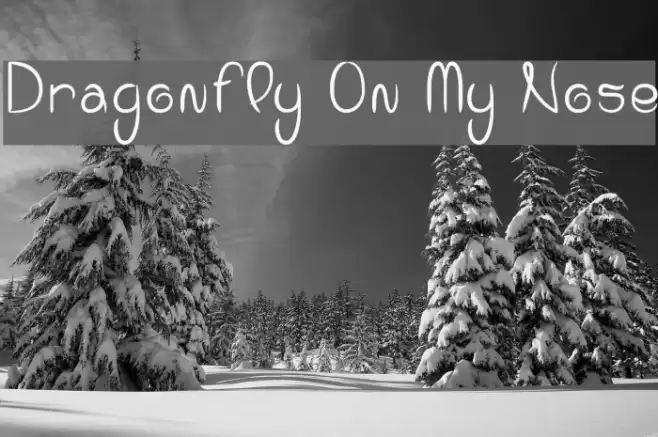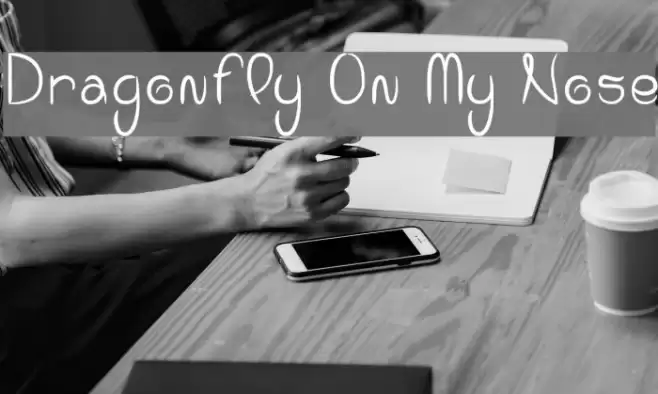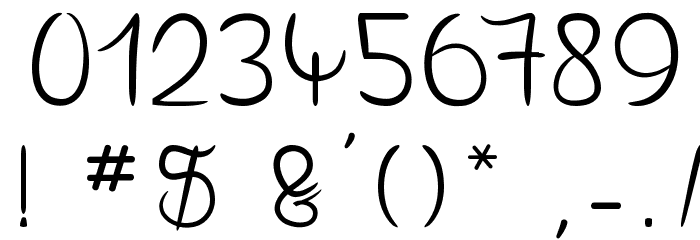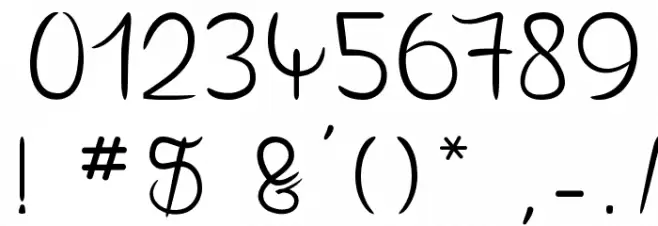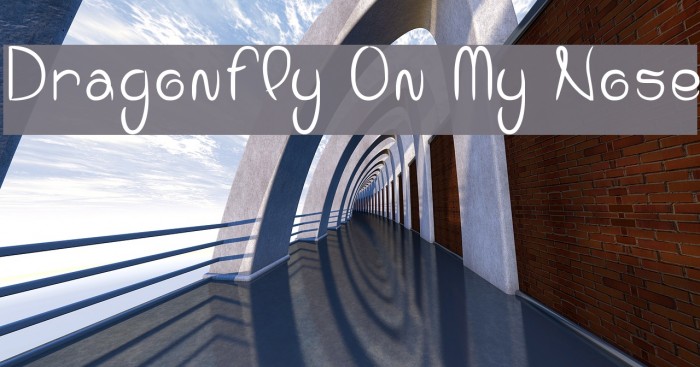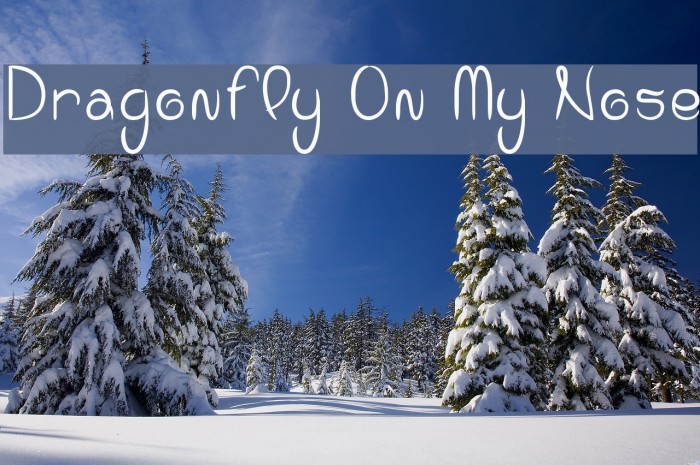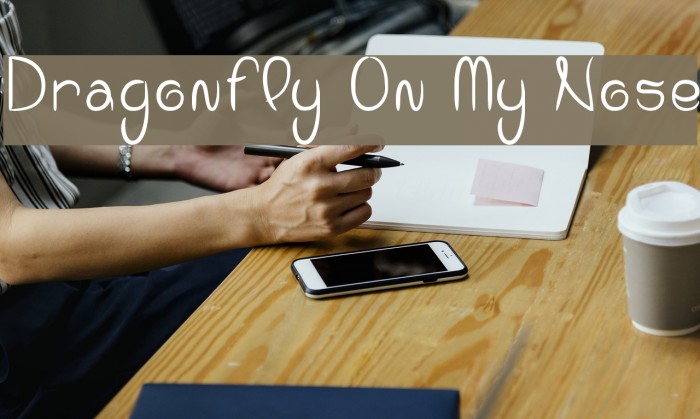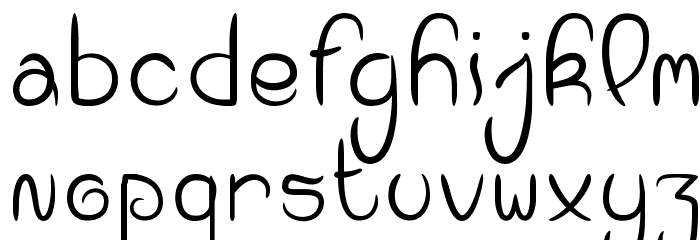
Dragonfly On My Nose Font
Dragonfly On My Nose Description
This playful and whimsical font features a handwritten style with a unique flair. The letters are characterized by their smooth curves and slightly irregular shapes, giving them a friendly and approachable appearance. The uppercase letters maintain a consistent height, while the lowercase letters exhibit a charming variation in size and form. The numbers are bold and easily legible, complementing the overall style of the font. Special characters are creatively designed, adding to the font's quirky personality. The strokes are of medium thickness, providing a balanced contrast that enhances readability without sacrificing its decorative appeal.
A playful, handwritten font with smooth curves and a whimsical style from Uncategorized fonts.
- Proposed Projects: Ideal for children's books, playful branding, greeting cards, and creative invitations.
- Overall Style: Whimsical
- Use Case: Headlines, Logos, Invitations